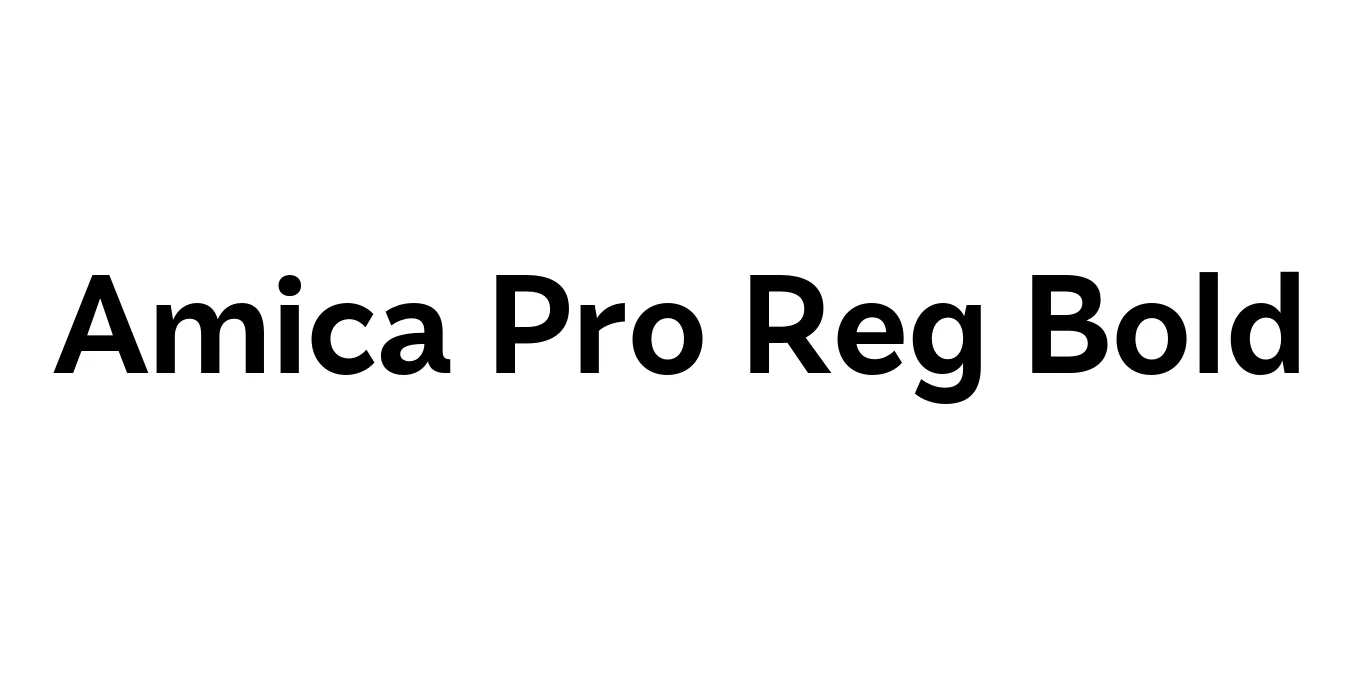
Amica Pro Reg Bold
Designed by Michael Jarotschkin
Amica Pro is a contemporary sans-serif typeface designed by Michael Jarotschkin. It was crafted with the primary goal of providing high legibility across both digital and print mediums. The font features a balanced structure that merges geometric precision with subtle humanist warmth, making it an excellent choice for modern branding projects, corporate communications, and user interface design.
The Reg Bold weight specifically offers a robust and authoritative presence, ideal for impactful headings and clear messaging. Its clean lines and open counters ensure that text remains highly readable even at smaller sizes, while the professional aesthetic allows it to fit seamlessly into editorial layouts, advertising campaigns, and sophisticated digital environments. This versatility has made Amica Pro a staple for designers seeking a reliable yet stylish workhorse font.
Amica Pro Reg Bold Best Uses
Perfect for clear and readable headers and body text on professional websites.
Ideal for creating strong and memorable corporate identities and logotypes.
Effective for impactful headlines in print and digital marketing materials.
Excellent for magazine layouts, brochures, and long-form typography.